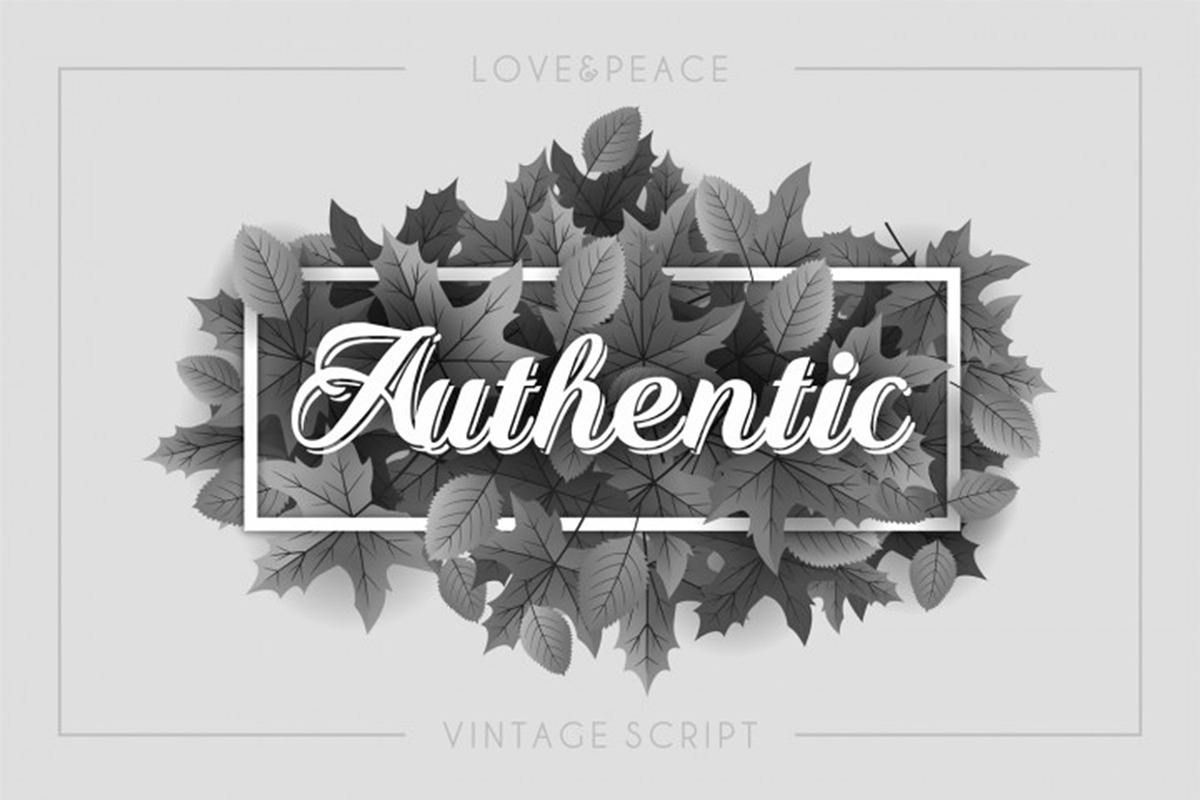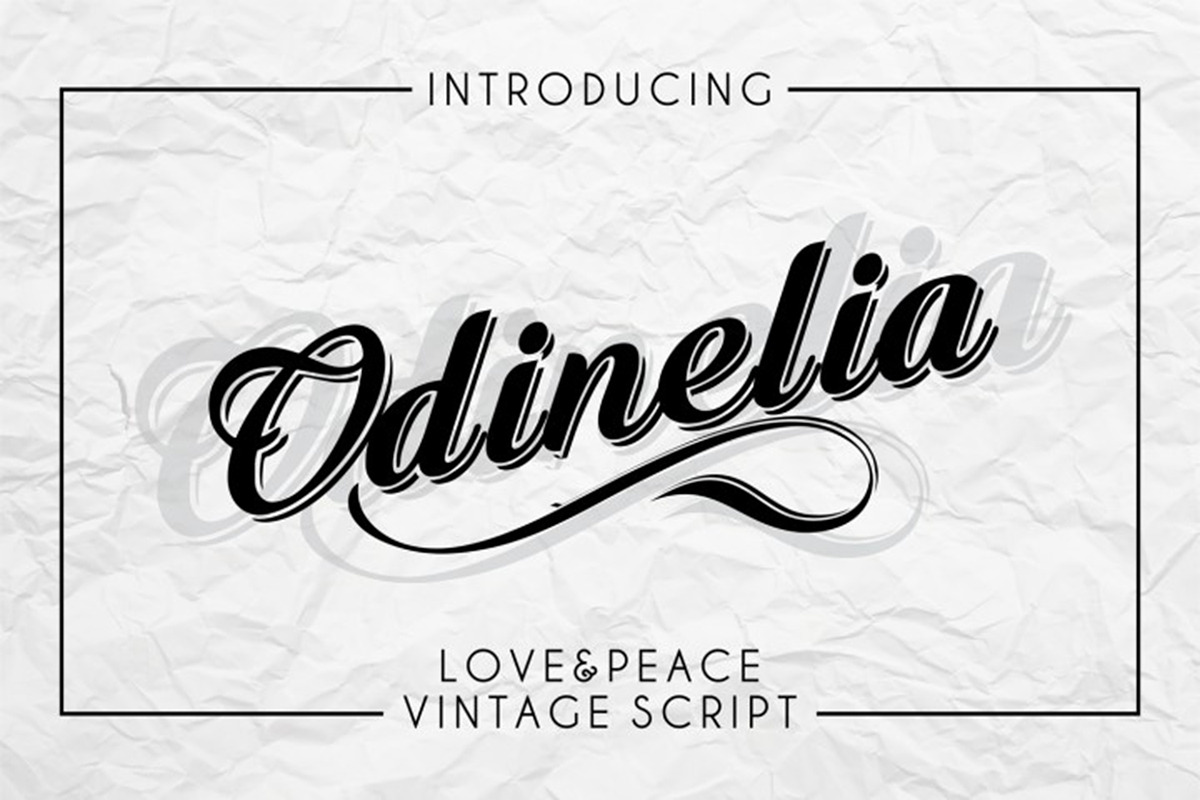
Love & Peace vintage script
Love & Peace is a catchphrase of pacifism. This typeface is very peaceful and lovely. It`s ideal for celebration lettering and design ideas as well as for postcards and even envelope headings. Great for parties and congratulation and greetings. With this perfectly aligned and smoothly separated from others like this type fonts this attractive font you can create stunning design within couple minutes. Your hard work will be appreciated, and you will be noticed.
Love and Peace font in Odinelia covered design. The font you have downloaded is ideal for your design works in any type of context. It is basically mixture of standard font family types with modern design ideas used in many industries. Handcrafted by professional designers this attractive font is highly visible on any poster or postcard, or invitation letter heading.
Why Love & Peace vintage script is worth a look
Love & Peace vintage script by Vintage Font Lab fits naturally into Branding, posters, packaging, typography.